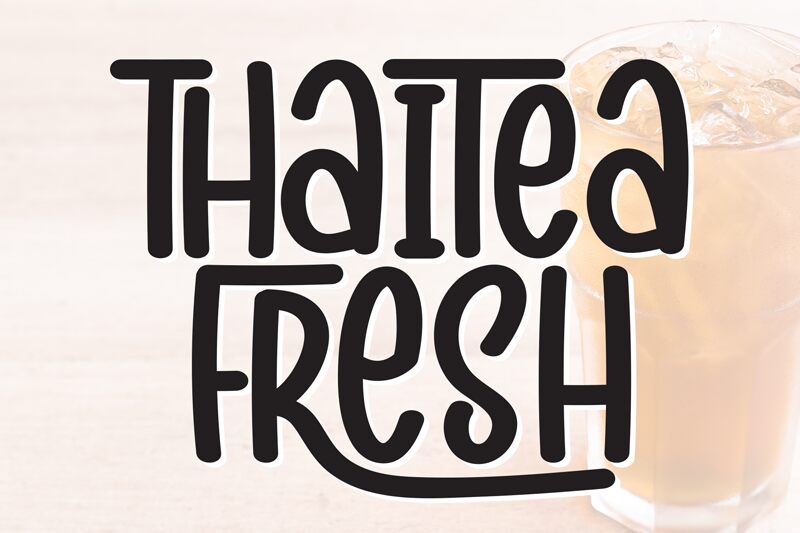
Thaitea Fresh font is a free-to-use script font by Scratchones. While imitating a handwritten script style while keeping things about it structured, Thaitea Fresh perfectly blends casual and modern. It is welcoming both in terms of aesthetics and practical usage, carrying the energy your design could benefit from. Friendly in nature, this perfectly captures its name — referring to a delicious fruity tea.
With a unique ability to invite the user’s gaze toward its characters, there’s a lot this font has to offer. Practical design applications for it include food and beverage branding, advertising with an approachable tone, cafe logos, menu designs, and catalog design.
Other less-obvious areas where the typeface can work well include greeting cards, special occasion invites, and multimedia where an informal yet bubbly look is required.